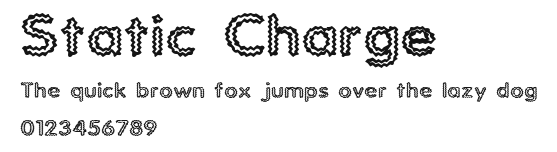
About Static Charge.ttf
Static Charge.ttf is a modern, elegant sans-serif font designed for ultimate readability and visual harmony. Perfect for branding, headlines, web design, and print materials.